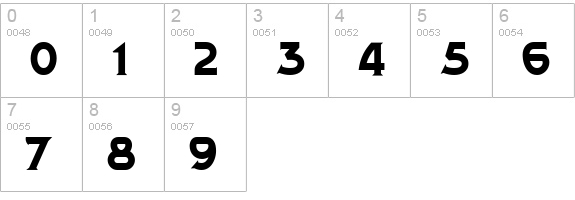
Brownwood NF Font Details
Brownwood NF is a charming and versatile serif font that exudes elegance and sophistication. Its classic design makes it perfect for a wide range of design projects, from branding to editorial layouts. The timeless appeal of Brownwood NF makes it a go-to choice for designers looking to add a touch of refinement to their work. This font features clean lines and beautiful curves that give it a polished and professional look. The unique serifs add a touch of character and style, making Brownwood NF a standout choice for any project. Best of all, Brownwood NF is available for free download at FontsMarket.com. This means you can easily access this high-quality font to enhance your designs without breaking the bank. Don't miss out on the opportunity to add Brownwood NF to your font collection and elevate your design projects to the next level.